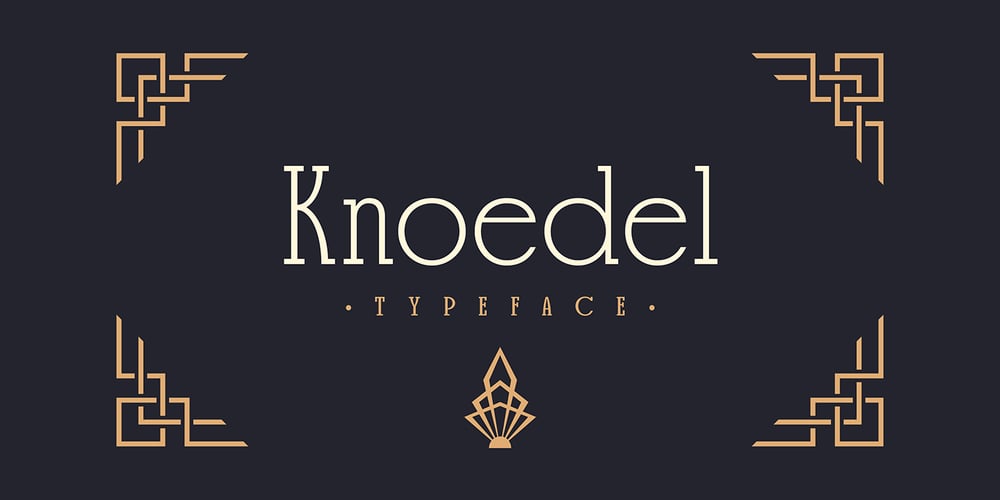
Knoedel
Knoedel font
Knoedel Font Family was designed by Pablo Lozano and published by PabType. Knoedel contains 3 styles and family package options. Knoedel is a display typeface with three front-weights: light, regular and bold. Although a conjunction of different styles were a reference during the design process; the art deco style left a more noticeable influence in the final design. Knoedel, also has clear references to geometric and slab serif fonts.The design is intended to be applied on headlines or short text fragments.Knoedel offers full coverage for all languages using Latin alphabet: whole Europe, America, Oceania and on a big number of African and Asian countries.Besides the standard ligatures, Knoedel, additionally, has more than 200 discretionary ligatures and a generous number of borders and ornaments.Knödel (Knoedel) is a traditional dish from Austria and the southeast of Germany; made of dumplings of different ingredients usually boiled in salted water. It is not high-end cuisine but still, it accomplishes its aim of soothing hunger.